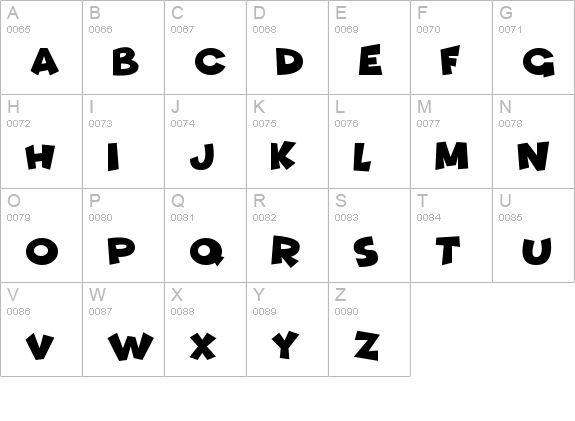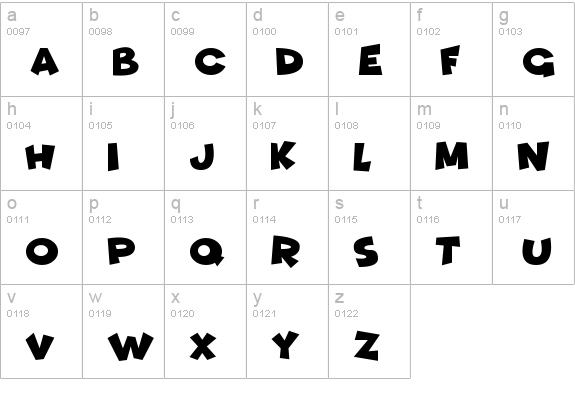
Fun House Font Details
Fun House is a donationware font in the Fancy > Comic category, designed by Darrell Flood. It has been downloaded 106 times and is available for Windows, Mac and Linux.
Fun House font is a playful and energetic typeface that is sure to bring a sense of whimsy to your designs. With its bold and quirky style, this font is perfect for projects that need a touch of fun and creativity. The rounded edges and unique character shapes give Fun House font a distinctive look that will make your text stand out.